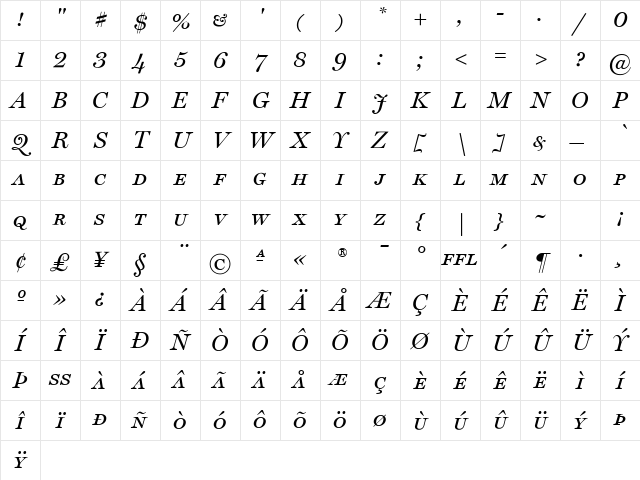
Complete MillerDisplay Regular glyph index. Displaying only characters natively supported by MillerDisplay Regular font.
MillerDisplay is built around its visual character rather than neutral utility - its distinctive forms are designed to make an impression at display sizes.
Font Pairing: Pair with a clean neutral sans-serif for body copy to let MillerDisplay's character lead without overwhelming the composition.
Pro Tip: Use MillerDisplay exclusively at display sizes - it was designed to be seen, not read at length. Let a neutral companion handle body copy.